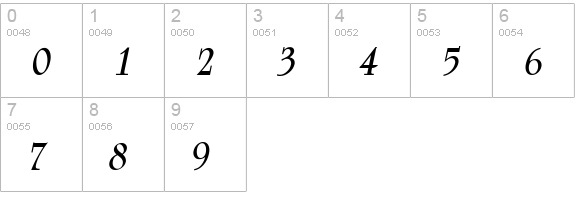
University Bold Italic Font Details
University Bold Italic is a strong, high-contrast, italic variant in the University typeface family \xE2\x80\x94 well suited to headlines, attention-grabbing titles, and strong calls-to-action.
University Bold Italic is a striking and versatile font that exudes a sense of confidence and sophistication. With its bold and italicized design, this font commands attention and adds a touch of elegance to any project. Whether you are creating a professional presentation, designing a sleek logo, or crafting a stylish advertisement, University Bold Italic is the perfect choice to make a bold statement. Its clean lines and distinctive slant create a visually appealing and modern look that is sure to captivate your audience. But what sets University Bold Italic apart is not just its impressive aesthetics; it is also the fact that it is available free of charge. Yes, you read that right! You can freely download this amazing font at FontsMarket.com, making it easily accessible to designers, creatives, and enthusiasts alike. Imagine having a font that combines the power of boldness with the elegance of italics, and being able to use it in your projects without having to spend a dime. With University Bold Italic, you can elevate your designs and bring them to life without breaking the bank. So, whether you are a student working on a school project, a professional designer looking to add a touch of sophistication to your work, or simply someone with a passion for typography, University Bold Italic is the ideal font for you. Download it today at FontsMarket.com and unleash your creativity with this remarkable, freely available font.